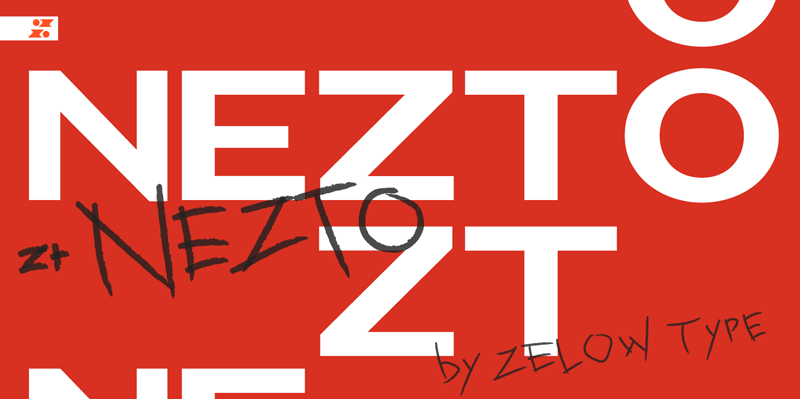
This font is for DEMO! For commercial licence please visit our site: https://www.myfonts.com/fonts/khaiuns/zt-nezto/ Donation are very appreciated. Paypal account for donation : https://paypal.me/khaiuns CONTACT US: have a question?: selowtype@gmail.com follow my Behance for update: https://www.behance.net/zelowtype ________________________ ZT Nezto is a new work that focuses on curved areas, bringing out an elegant and refined style. The emergence of this idea was due to the constraints when designing with W&V letters which were very difficult to combine with other letters, and also the desire to present new elements in the world of typography, thus making each design more unified between letters. |